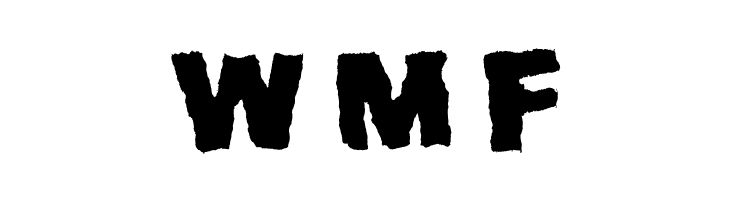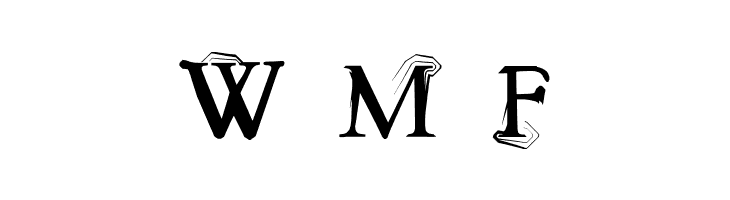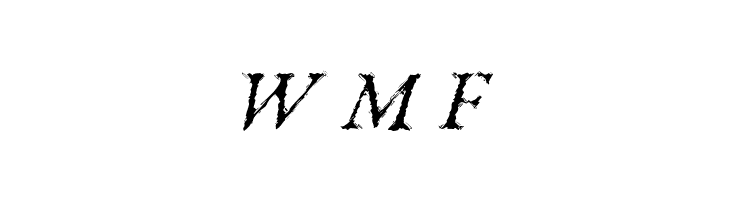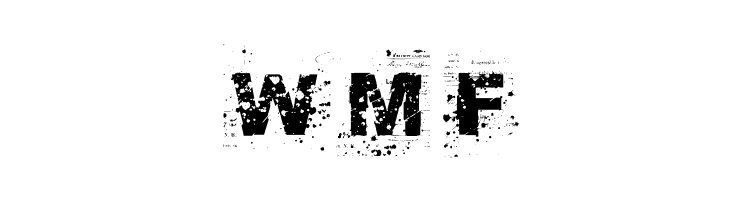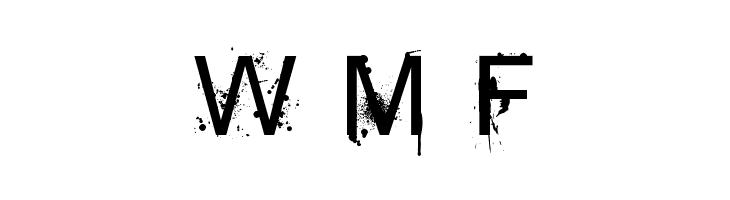
( Fonts by billyargel.blogspot.com - Billy Argel )
A bold, hand-painted style font with an expressive, artistic flair.
( Fonts by Heather T. - oohlalaartsy.blogspot.com )
A bold, graffiti-inspired font with expressive, splattered characters.
( Fonts by Kevin Christopher - www.kcfonts.com )
A bold, textured font with a rugged, organic appearance.
( Fonts by Christophe Feray - www.wcfonts.com )
An abstract, ink-splatter inspired decorative font with a chaotic and artistic style.
( Fonts by Christophe Feray - www.wcfonts.com )
An abstract, graffiti-like font with ink splatter aesthetics.
( Fonts by Andrew Hart - dirt2.com )
A grunge, distressed font with decorative elements and a bold, edgy style.
( Fonts by Christophe Feray - www.wcfonts.com )
An artistic font with ink splatter designs for a bold, expressive look.
( Fonts by Christophe Feray - www.wcfonts.com )
An artistic font with ink splatter-inspired characters, offering a chaotic and expressive style.
( Fonts by David Kerkhoff - www.hanodedphotography.com )
A bold, brush-stroke font with a chaotic and rebellious aesthetic.
( Fonts by Steve Cloutier - www.cloutierfontes.ca )
A bold, distressed font with a grunge aesthetic, featuring unique textures and edgy details.
( Fonts by Juan Casco - www.juancasco.net )
A distressed, grungy font with a raw, hand-drawn aesthetic.
( Fonts by Steve Cloutier - www.cloutierfontes.ca )
A textured, italicized font with a brush stroke appearance.
( Fonts by Steve Cloutier - www.cloutierfontes.ca )
A bold, distressed font with a grunge texture for an edgy, rebellious look.
( modblackmoon.narod.ru/ )
A grungy, dripping font with a bold, edgy aesthetic.
( fontm.com/author/weknow/ )
A distressed, grungy font with irregular edges and a bold, artistic style.
( Fonts by www.junkohanhero.com )
A distressed, grunge-style font with a textured, vintage appearance.
A bold, spiky, ink-splattered decorative font with a raw, expressive style.
( Fonts by Andrey Chernevich - Mister Chek - www.misterchek.ru )
A bold, ink-splattered font with dynamic, brush-like strokes.
( Fonts by Dave Kellam - Brian Stuparyk - www.eightface.com )
A bold, distressed decorative font with an ink-splatter aesthetic.
( Fonts by www.fenotype.com )
A bold, distressed font with a grunge aesthetic and geometric structure.
A bold, distressed font with a grunge aesthetic and chaotic embellishments.
A playful, paint-splattered font with a bold and dynamic style.
( www.qkila.com/font )
A fluid, dynamic font with an organic, liquid-like appearance.
( Fonts by Andrew Hart - dirt2.com )
A bold, textured, and expressive font with a hand-drawn style.
( Fonts by Andrew Hart - dirt2.com )
A graffiti-inspired font with chaotic, energetic, and highly stylized characters.
( Fonts by Jonathan Harris - www.tattoowoo.com )
A bold, brush-style font with a raw, expressive aesthetic.
( Fonts by David Kerkhoff - www.hanodedphotography.com )
A bold, grungy brush-style font with a distressed texture.
( Fonts by David Kerkhoff - www.hanodedphotography.com )
A distressed, grungy font with splatter and drip effects for an edgy look.
( Fonts by David Kerkhoff - www.hanodedphotography.com )
A bold, gritty font with splattered, distressed strokes and a chaotic artistic vibe.